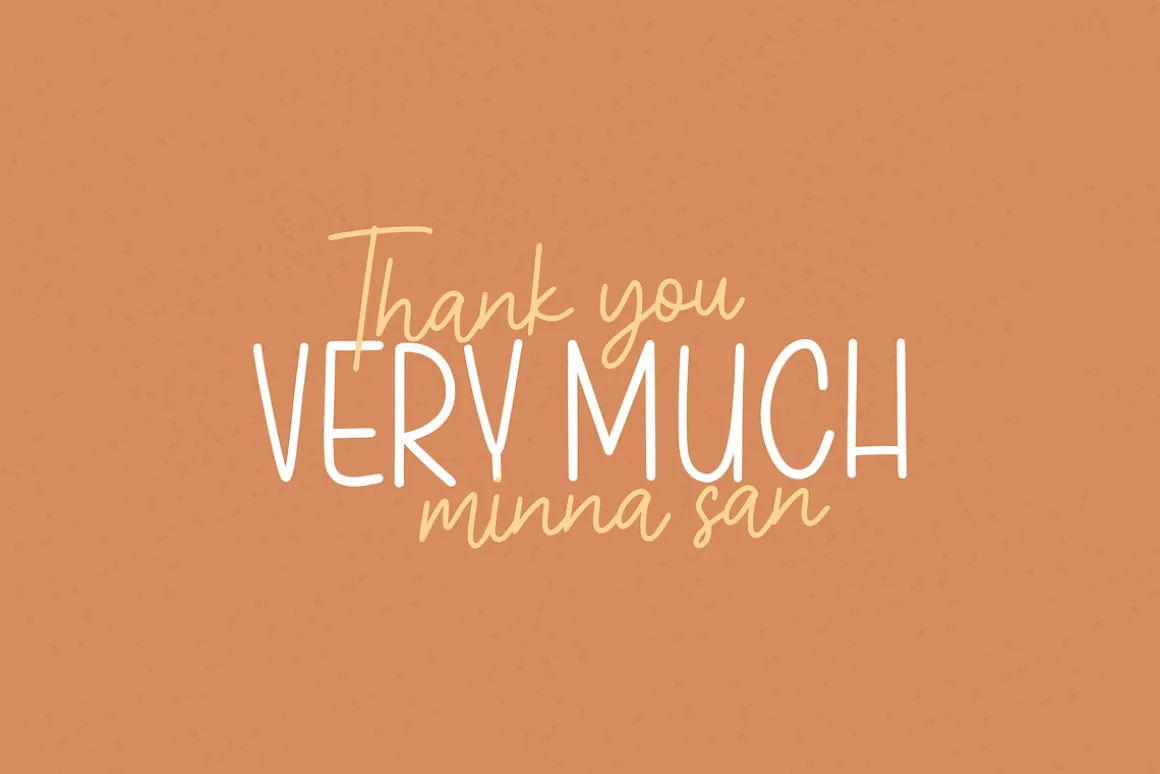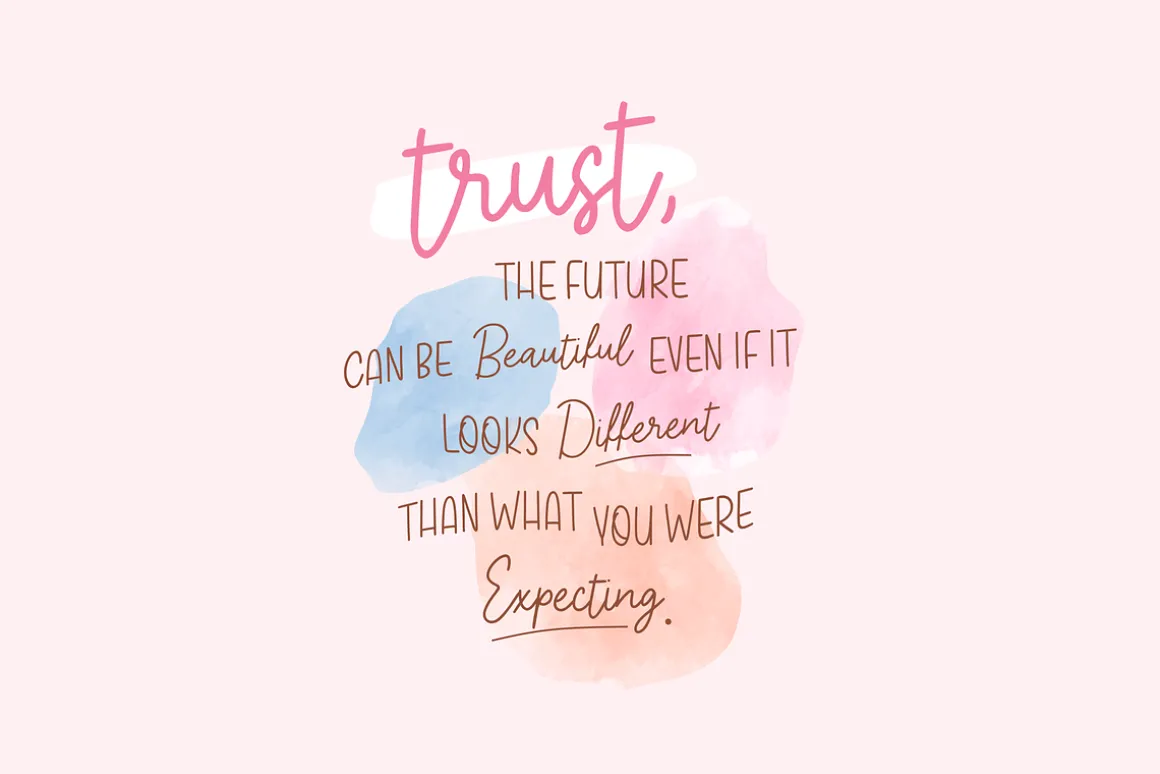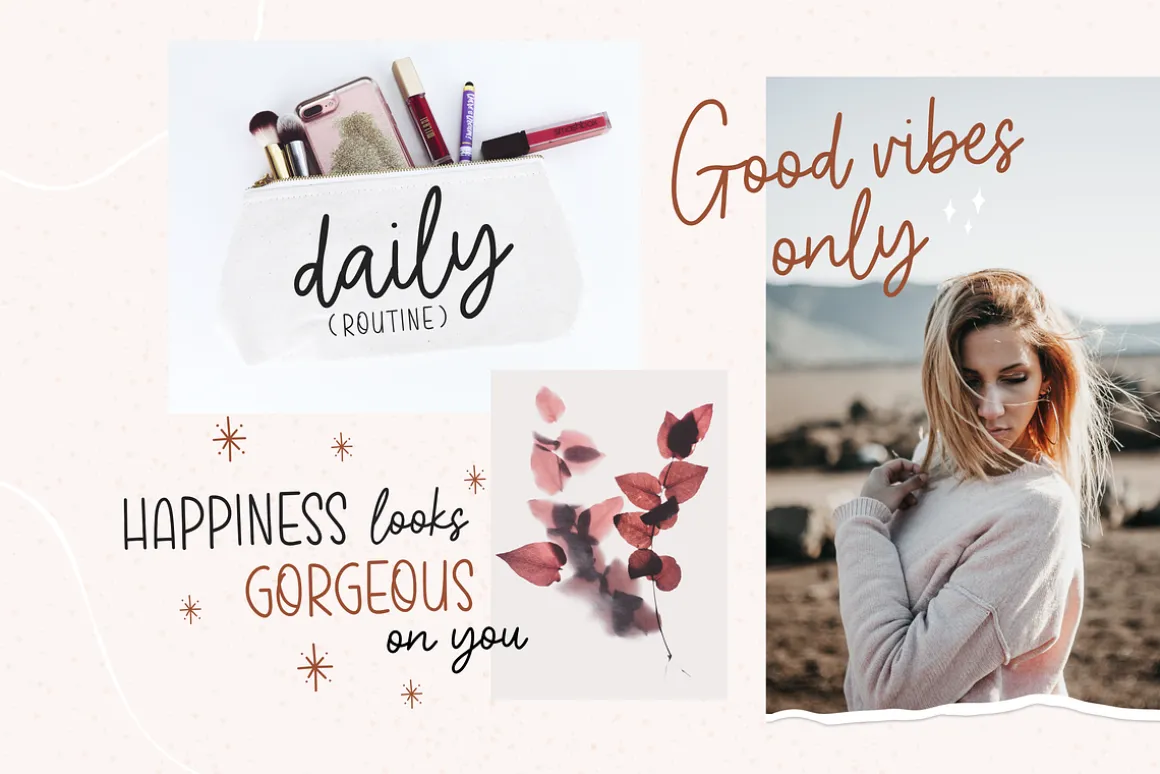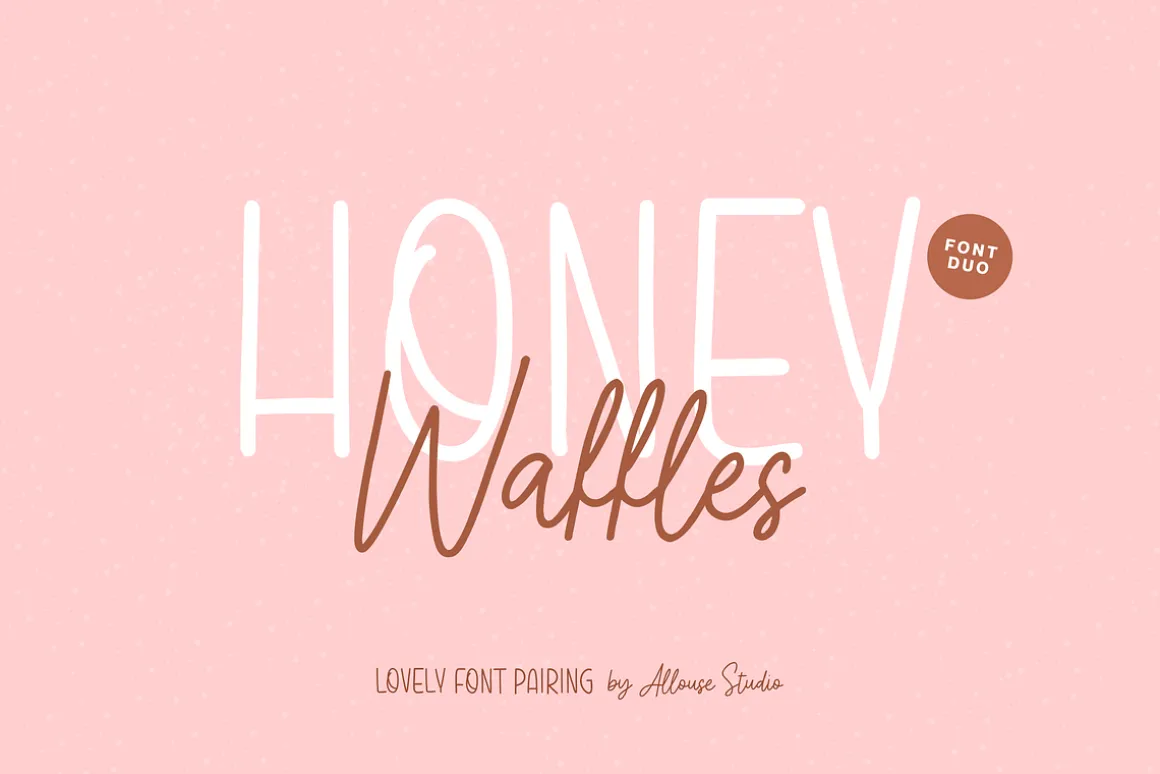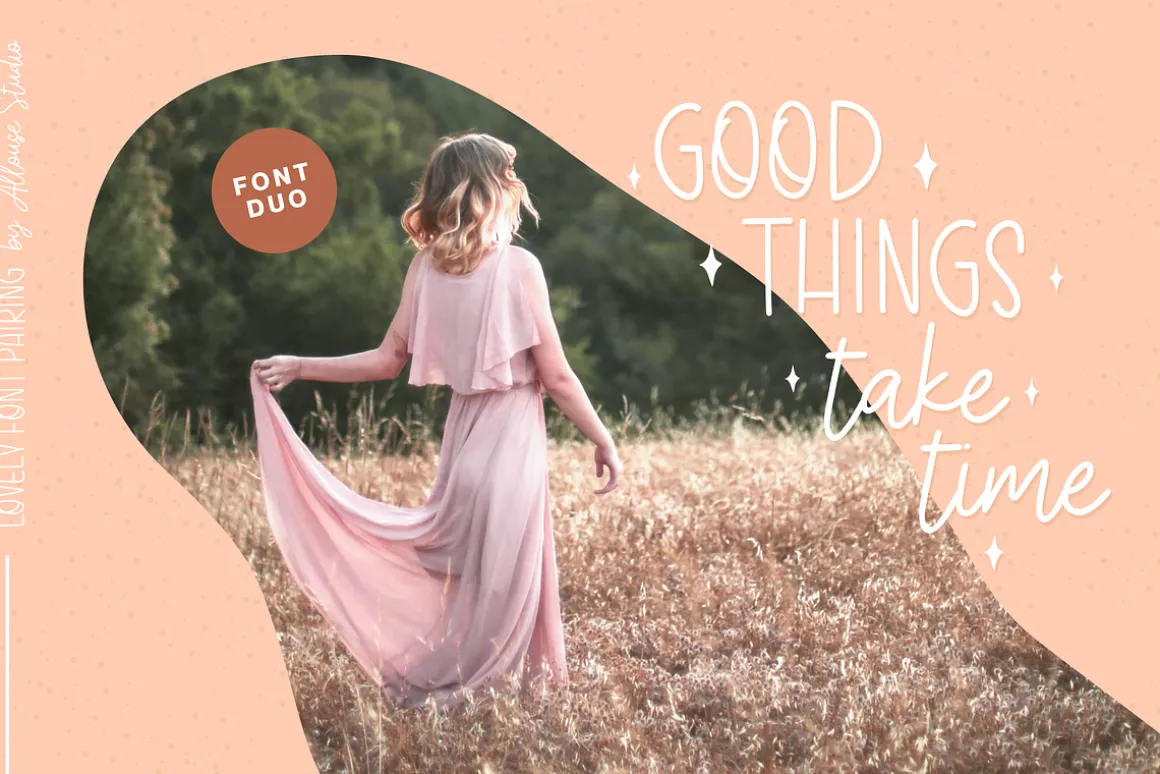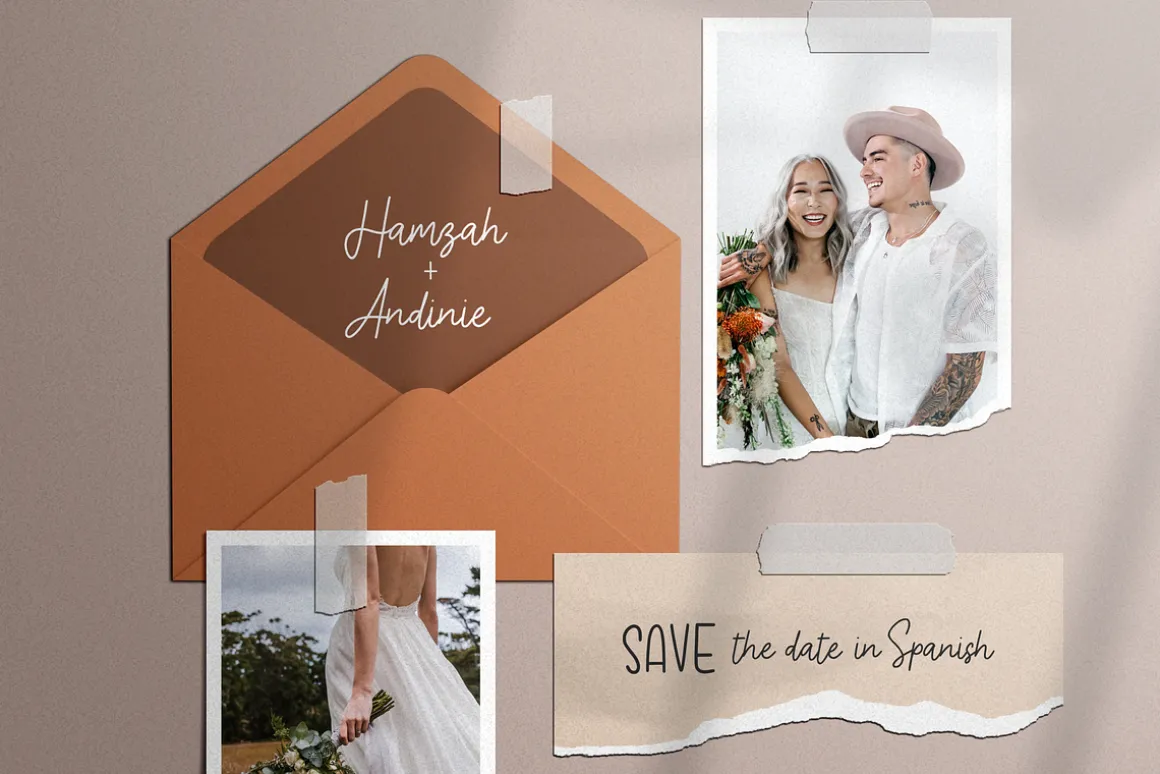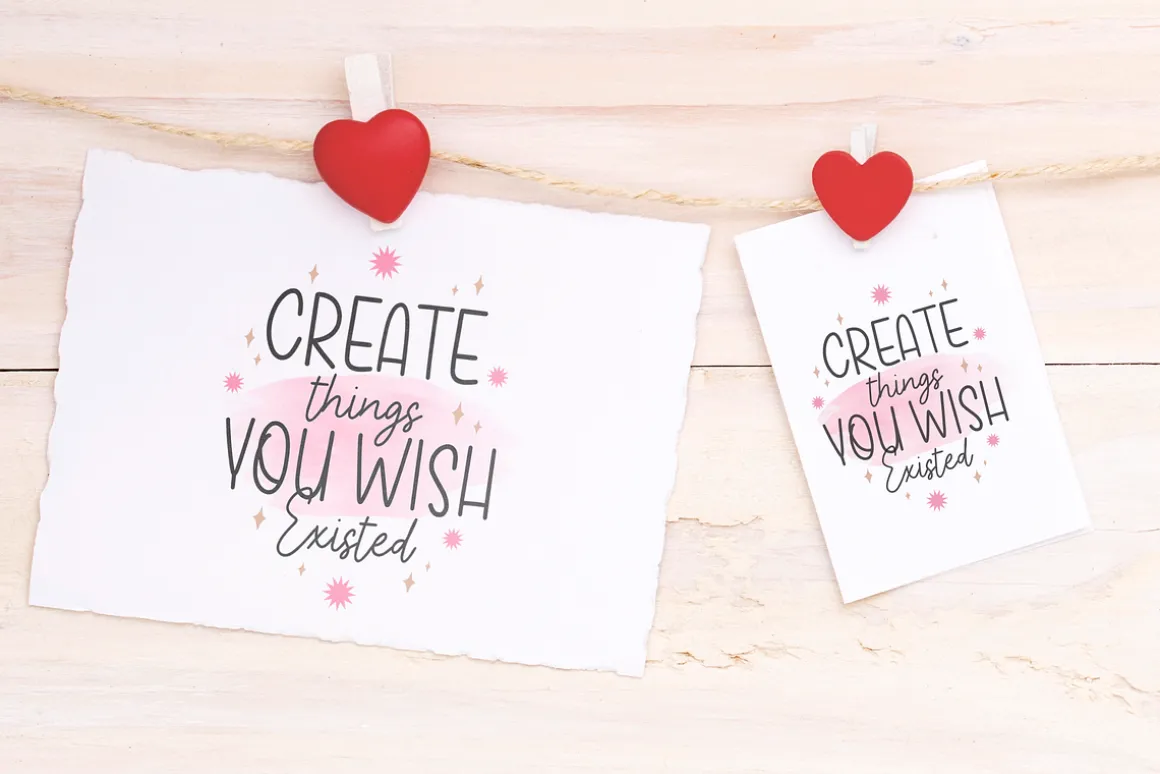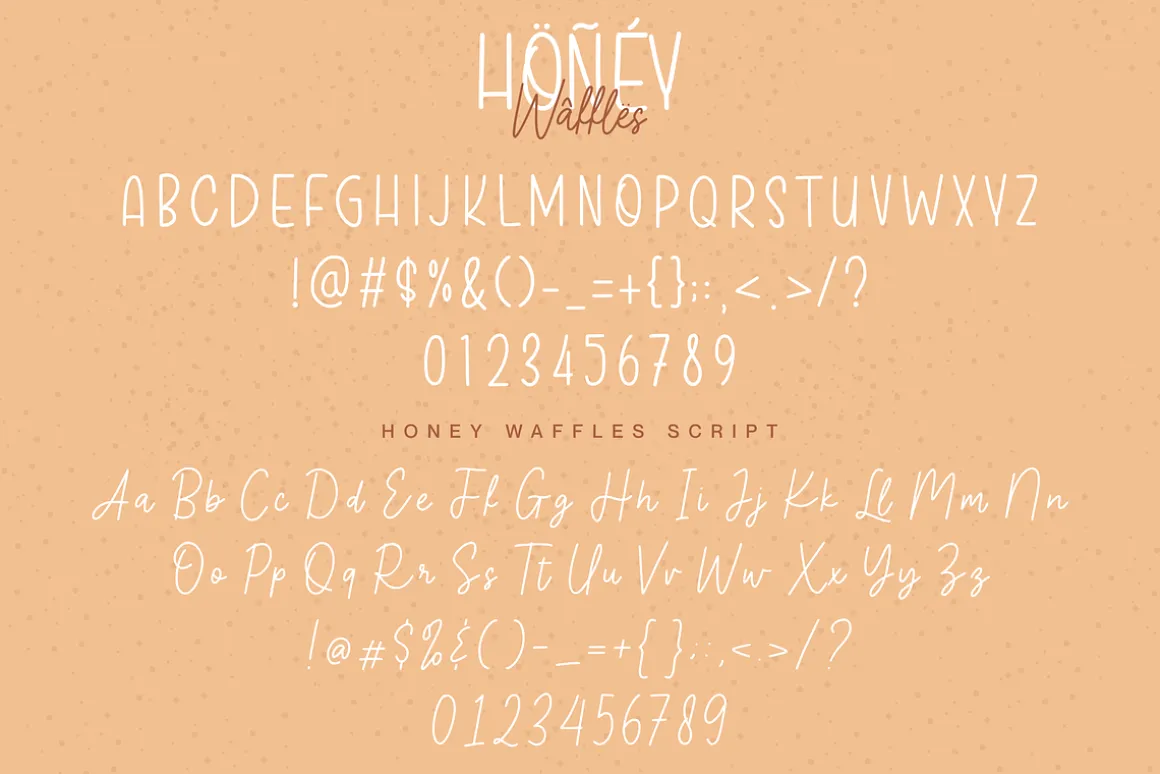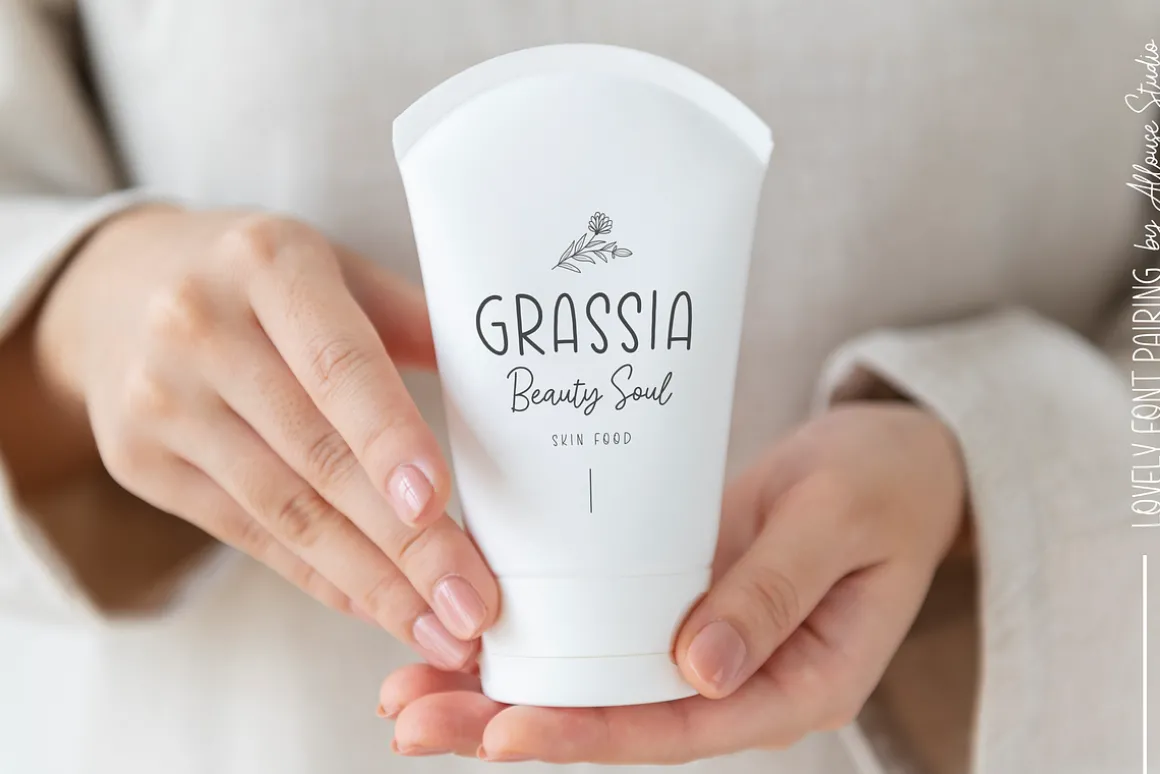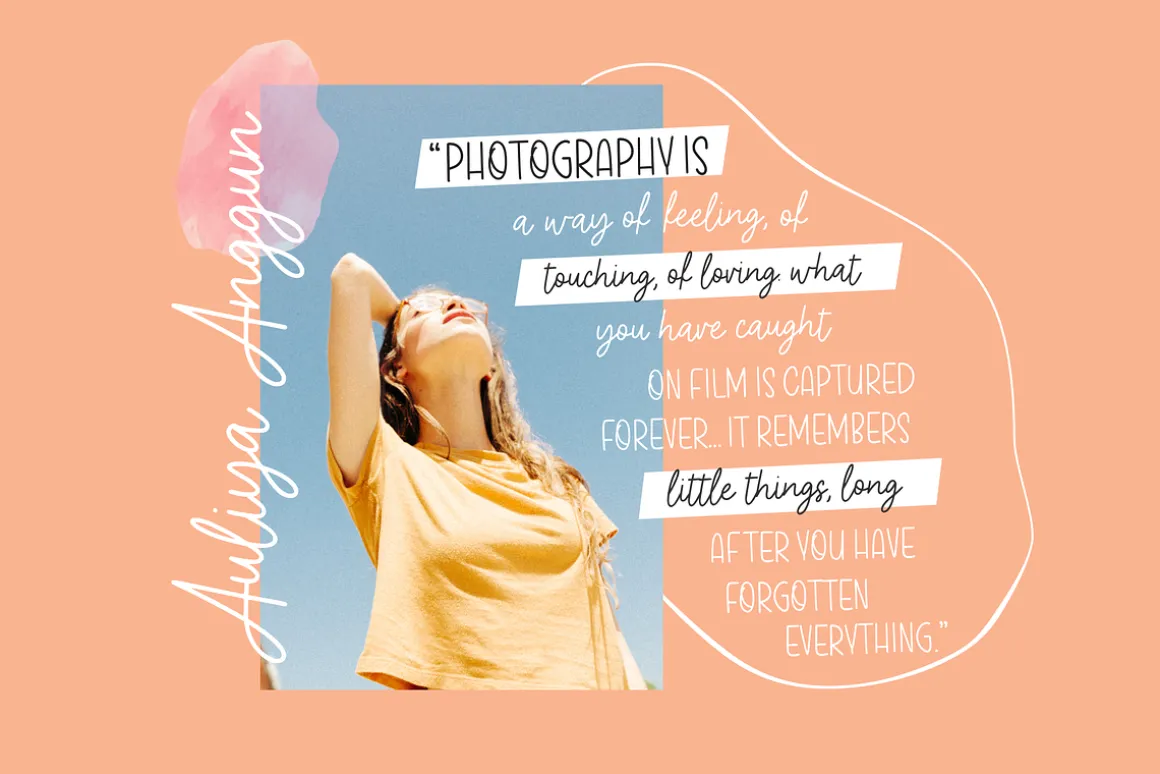
Proudly Present, Honey Waffles
Honey Waffles is a Lovely Font Pairing.
Honey Waffles is perfect for product packaging, branding project, megazine, social media, wedding, or just used to express words above the background.